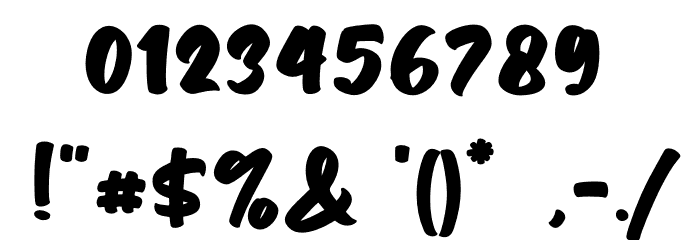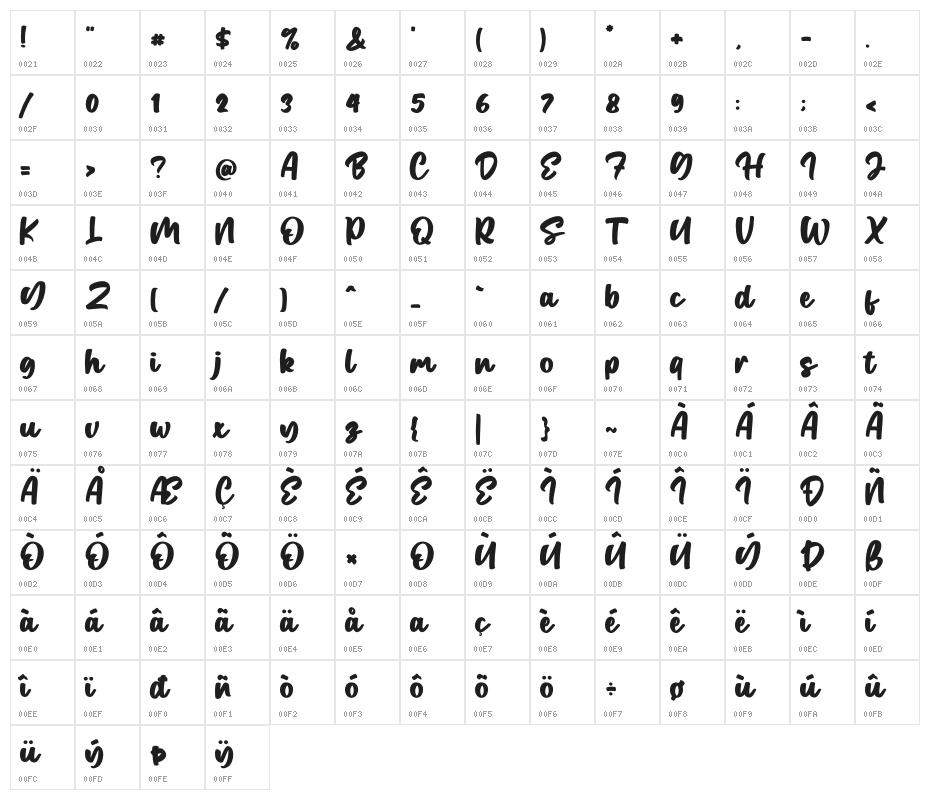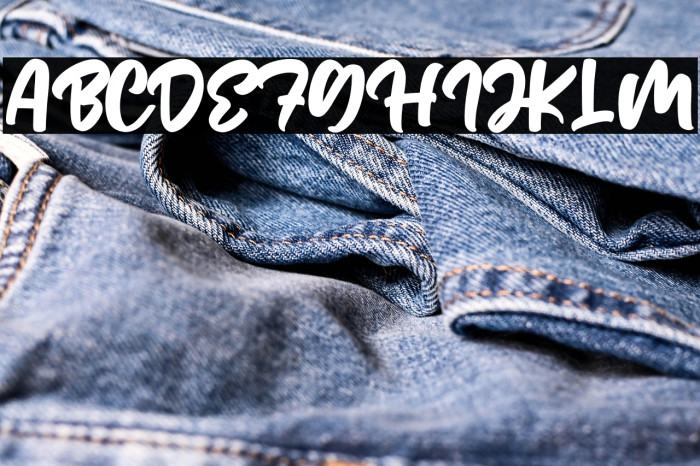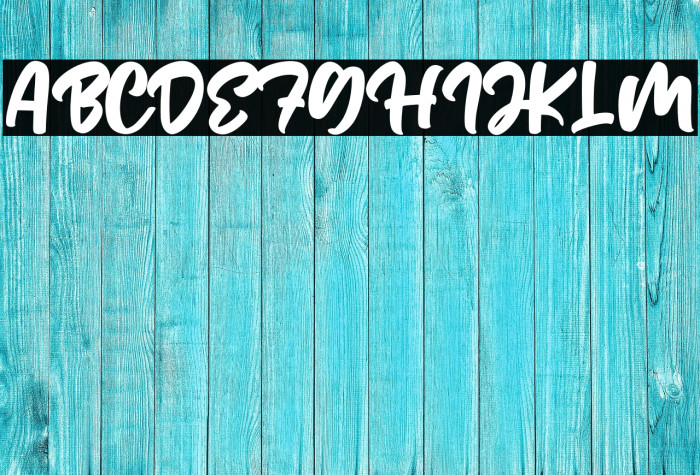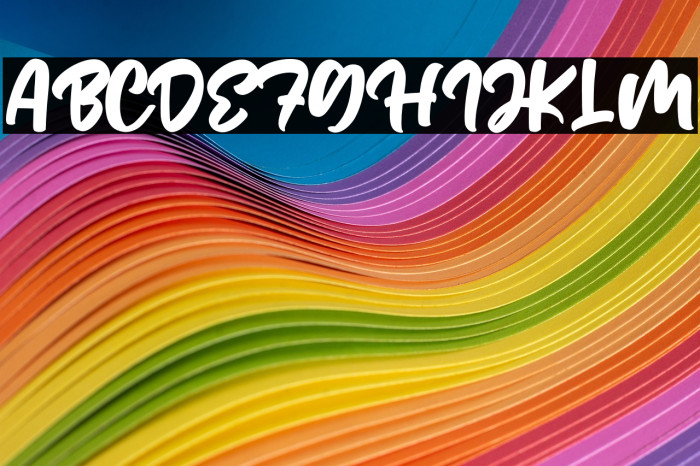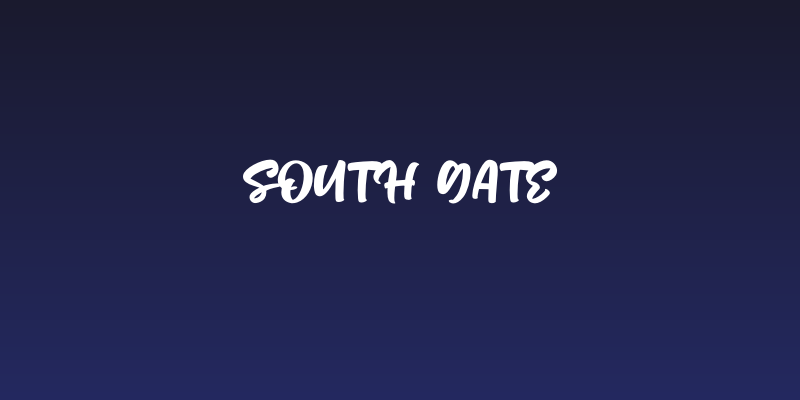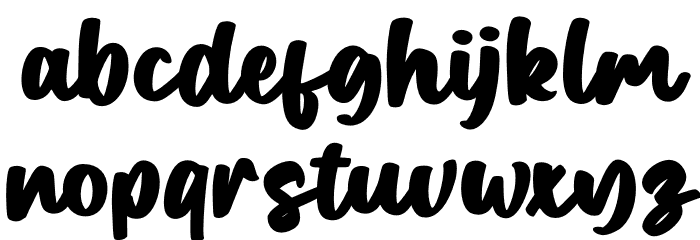
South Gate Font
South Gate Description
This font features a bold and expressive script style with a handwritten feel. The letters are connected, creating a fluid and dynamic appearance. The strokes are thick and consistent, giving the font a strong presence. The uppercase and lowercase letters maintain a cohesive look, with rounded edges and smooth curves. The numbers and special characters follow the same stylistic approach, ensuring uniformity across all glyphs. This font is ideal for projects that require a personal touch or a casual, friendly vibe.
| Proposed Projects | Ideal for branding, invitations, greeting cards, and social media graphics. |